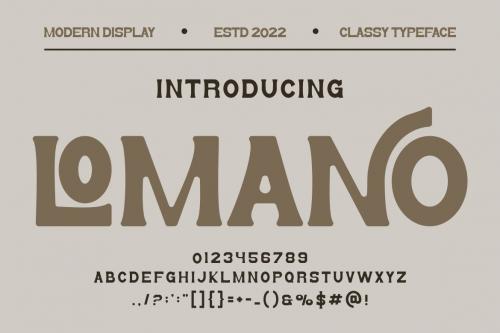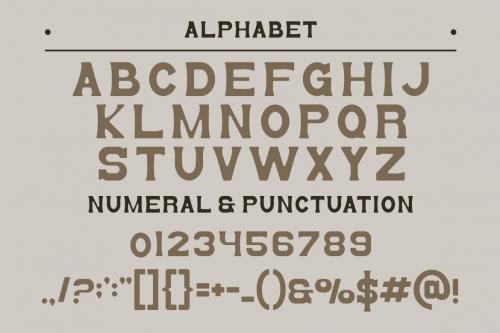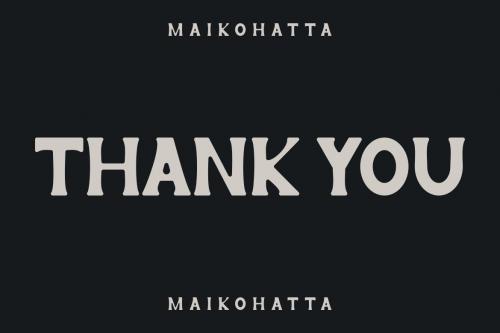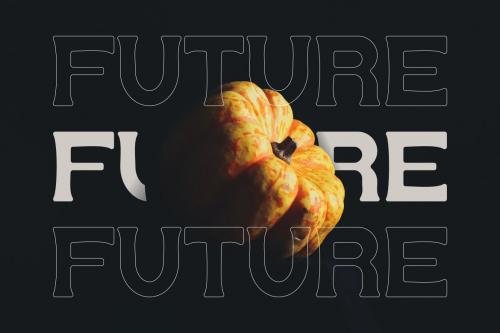
洛曼奥 serif字体
LOMANO Serif Font
Introducing our new product **LOMANO Serif Font** - Modern Font is a bold and authentic display font. The font is suitable for any branding project like logo, t-shirt printing, esport, and many more. outstanding in a wide range of contexts.
Introducing our new product **LOMANO Serif Font** - Modern Font
**LOMANO Serif Font** - Modern Font is a bold and authentic display font. The font is suitable for any branding project like logo, t-shirt printing, esport, and many more. outstanding in a wide range of contexts.